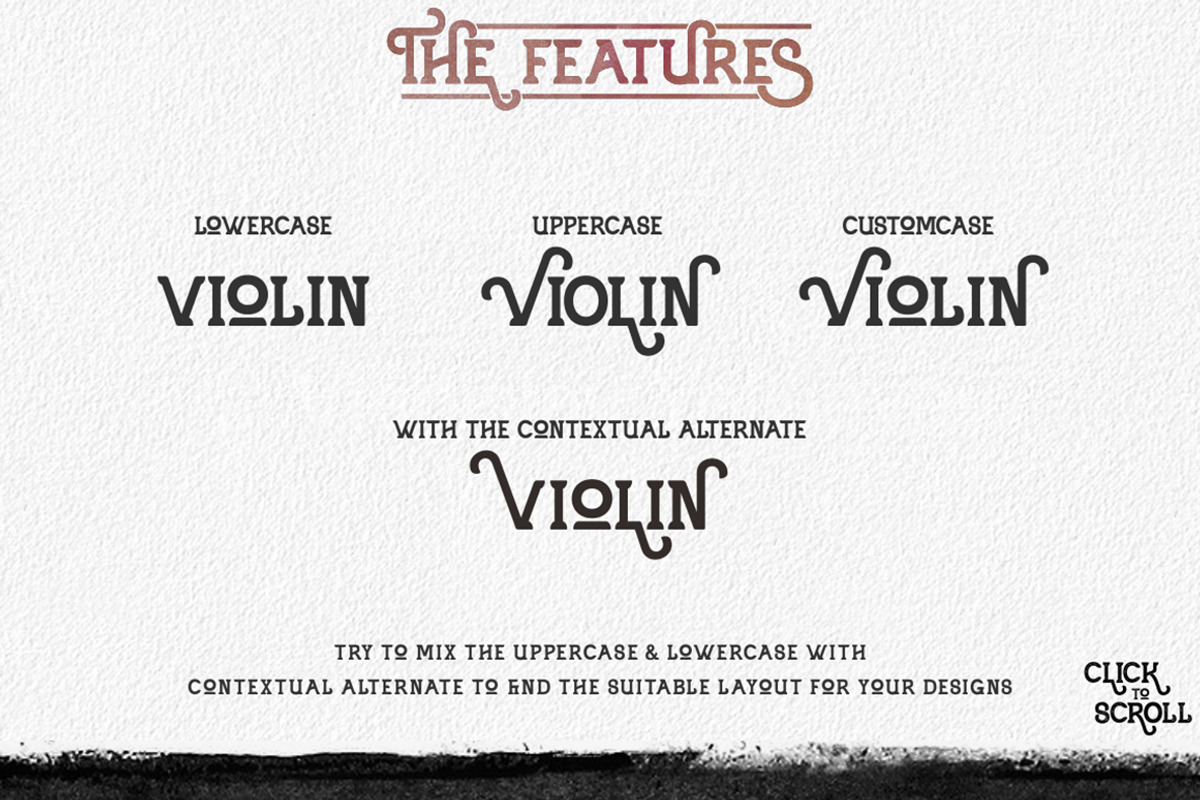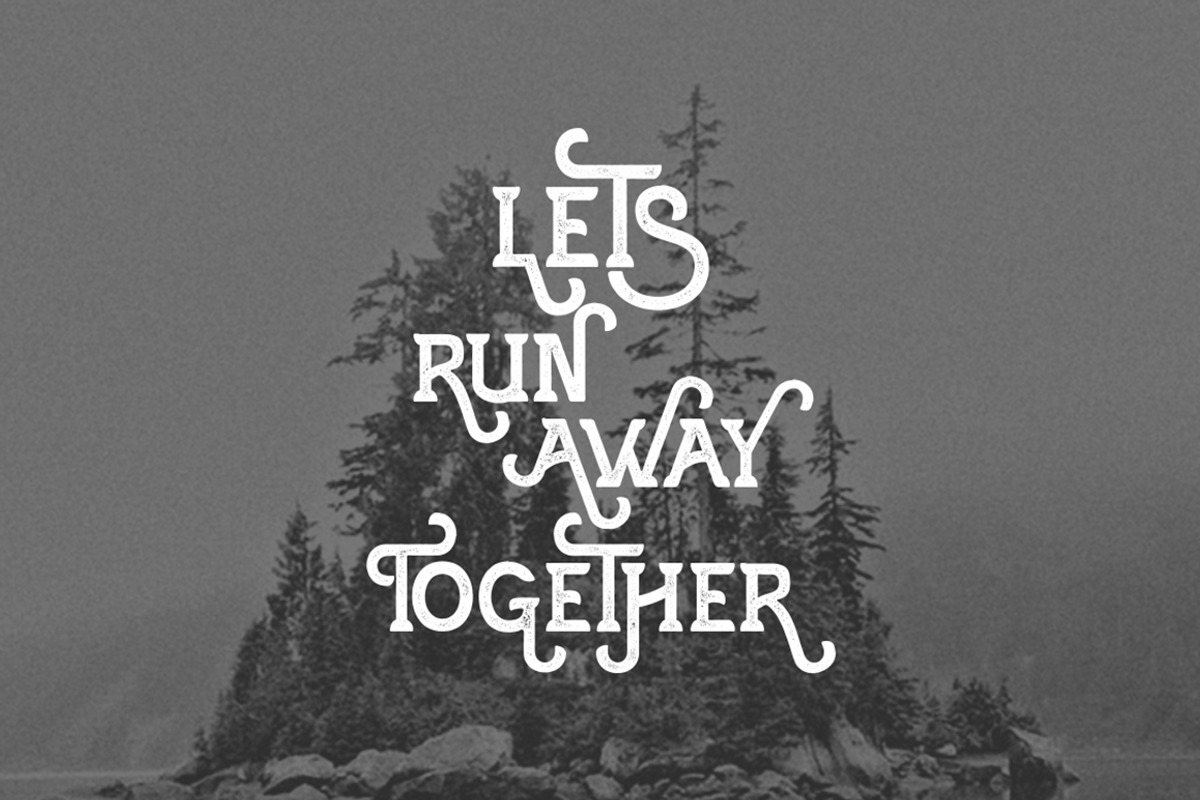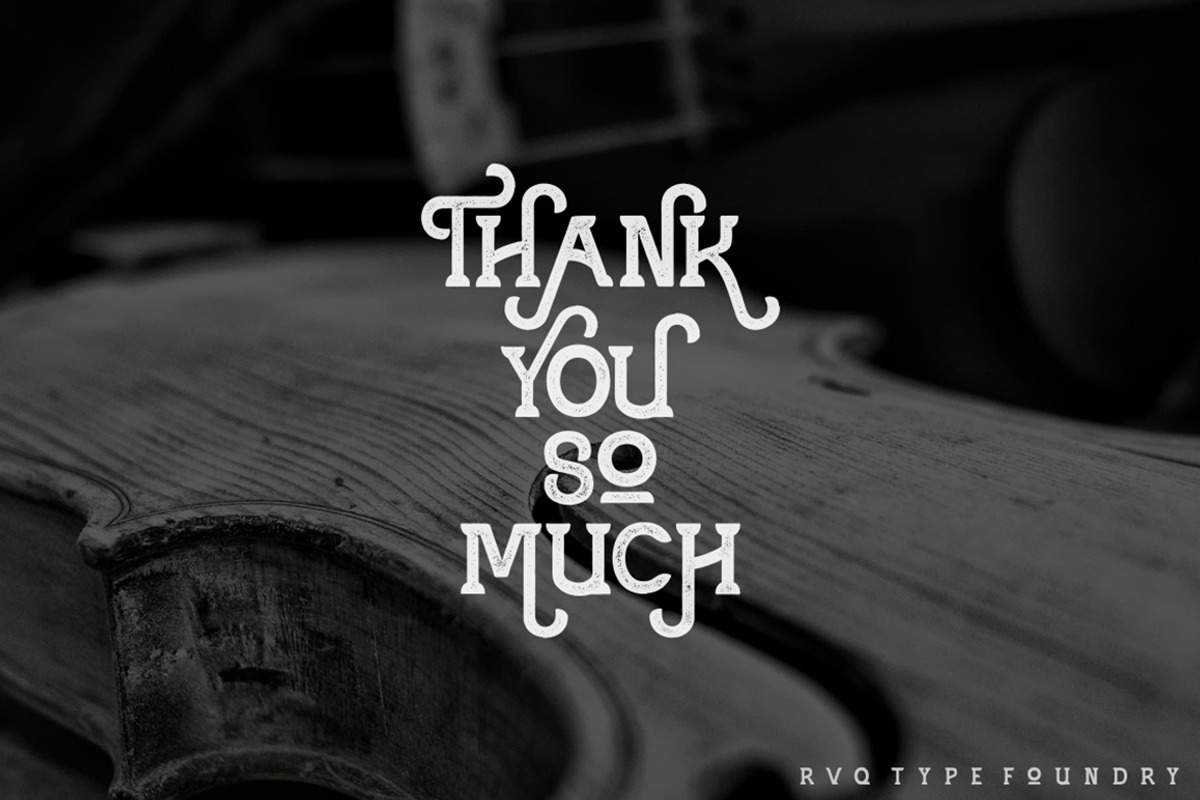
Violina Typeface
Violina Typeface by Rvq Type Foundry is a font selected for branding, posters, packaging, typography.
- The Violina typeface includes a full set of capital and lowercase letters, as well as multi-lingual support, currency figures, numerals, pun
- Violina typeface is suitable font for many creative products & designs.
Why Violina Typeface is worth a look
Violina Typeface by Rvq Type Foundry fits naturally into Branding, posters, packaging, typography.